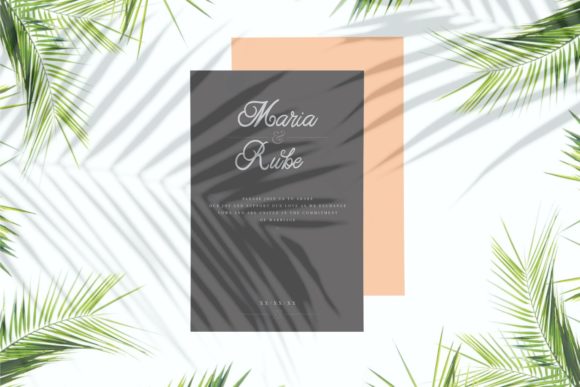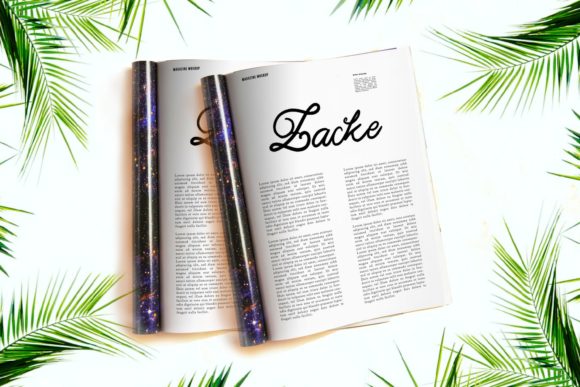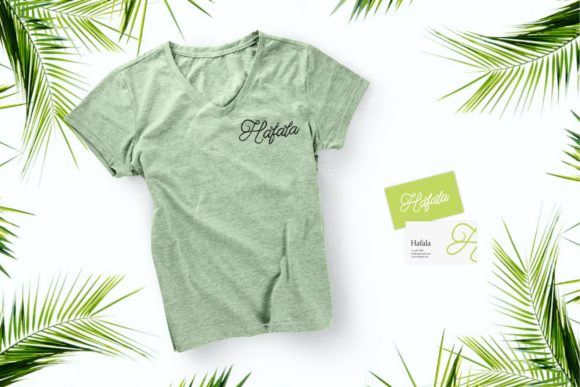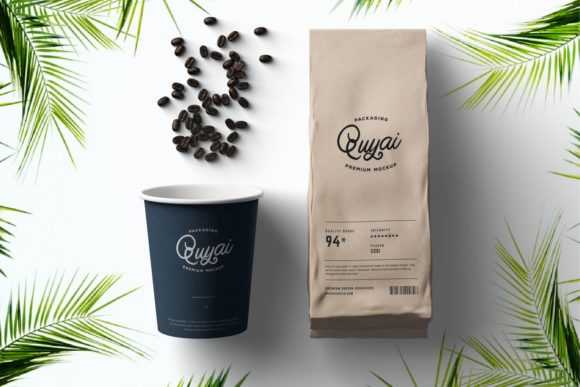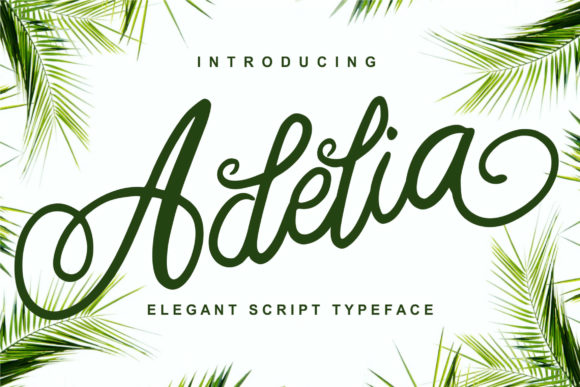
The Adelia Font: A Fun and Bold Script for Crafty Designs
I’ll never forget the time I was working on a DIY project for a client’s craft blog. I had the perfect concept, the ideal color palette, and a clear vision of what I wanted to achieve. However, as I started designing, I realized that I was struggling to find the right font to bring it all together. The project required a script that was not only fun and bold but also unique and authentic. That’s when I stumbled upon the Adelia font, and it instantly became the missing piece of the puzzle.
An Honest Review of Adelia Font
The Adelia font has been a game-changer for my designs, and here’s what I love about it:
• ✨ Unique style: Adelia has a one-of-a-kind script style that adds an authentic vibe to any crafting idea.
• ✅ Fun and bold: This font is perfect for designs that require a playful and eye-catching touch.
• 💡 Versatile: Adelia can be used for a wide range of projects, from crafting and DIY tutorials to social media graphics and blog posts.
However, like any font, Adelia is not without its quirks:
• 🤔 Limited use in formal designs: Due to its playful nature, Adelia may not be the best choice for formal or professional designs.
• ⚠️ Glyph limitations: Some users have reported that the font lacks certain glyphs, which can be a limitation for specific projects.
The Backstory of Adelia Font
The Adelia font was designed with the intention of creating a unique and authentic script that would add a touch of personality to any design. While the designer’s inspiration is not well-documented, it’s clear that Adelia was crafted with the creative hobbyist in mind.
Font Name Adelia Font
Author Ian Mikraz
What type of designs is Adelia best suited for? Adelia is ideal for crafting, DIY tutorials, social media graphics, and blog posts that require a fun and bold script.
Is Adelia a difficult font to use? No, Adelia is a relatively easy font to use, and its OpenType features make it simple to add personality to your text.